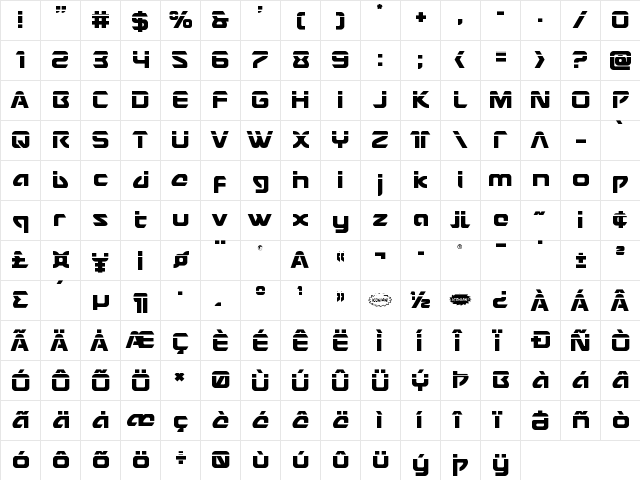
USAngel Laser Regular
Design Context for USAngel Laser Typeface
USAngel Laser is a composed and adaptable typeface that performs quietly and consistently across a wide range of design contexts.